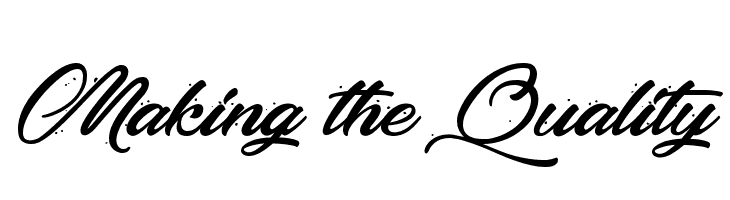
A graceful script font with elegant, flowing lines.
A bold, expressive script font with dynamic, flowing strokes.
A bold, expressive script font with high contrast and dynamic flow.
A dynamic and expressive script font with elegant strokes and decorative flourishes.